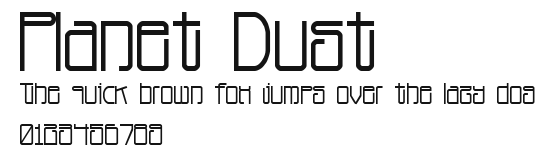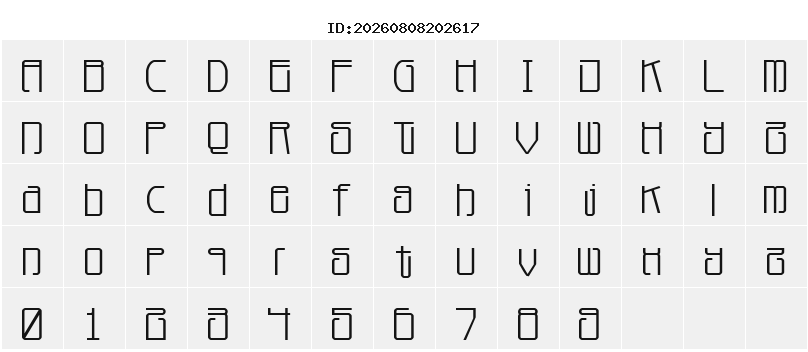
• Font Name: Planet Dust
About Planet Dust.ttf
Planet Dust.ttf is a modern, elegant sans-serif font designed for ultimate readability and visual harmony. Perfect for branding, headlines, web design, and print materials.